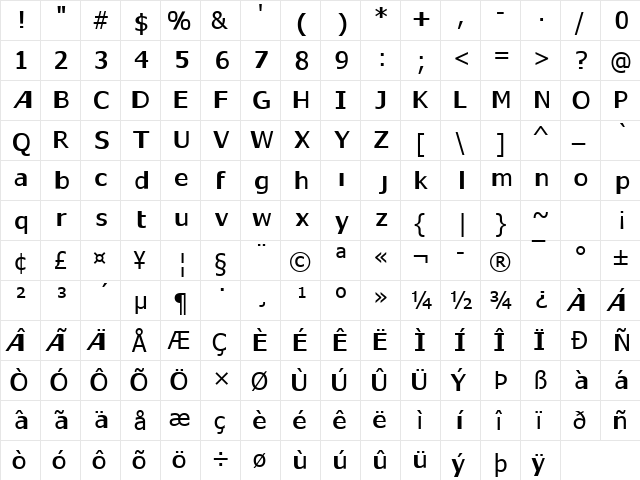
Gaps Regular
| Foundry | David Torreiro |
| Designer | David Torreiro |
Design Context for Gaps Typeface
Gaps is a composed and adaptable typeface that performs quietly and consistently across a wide range of design contexts.